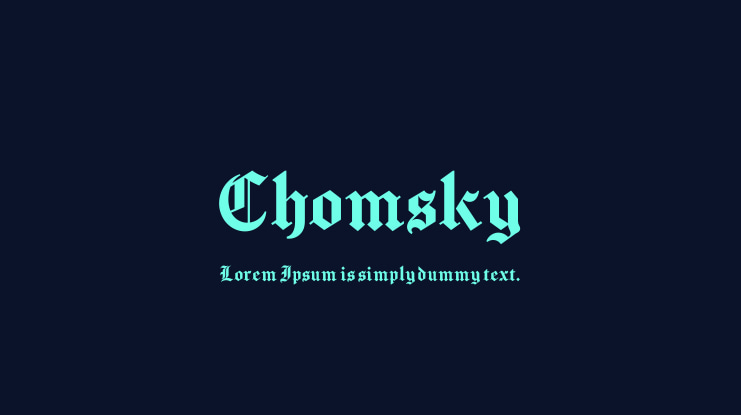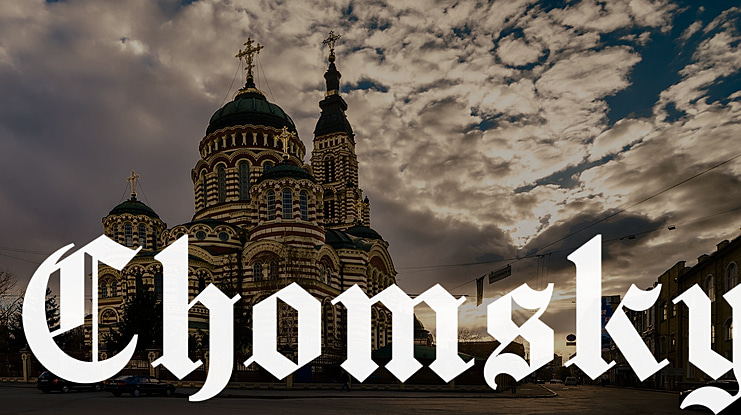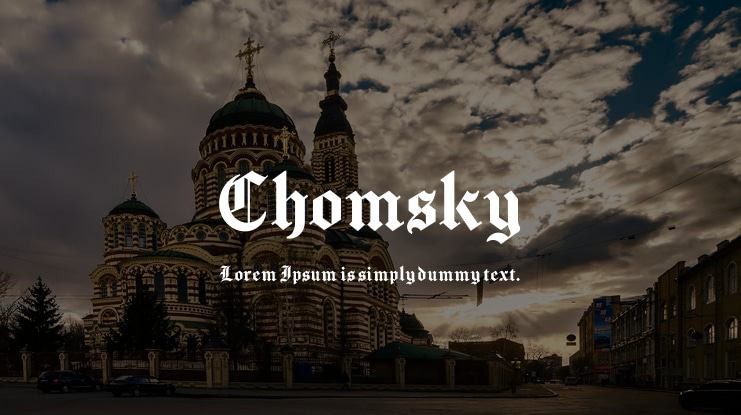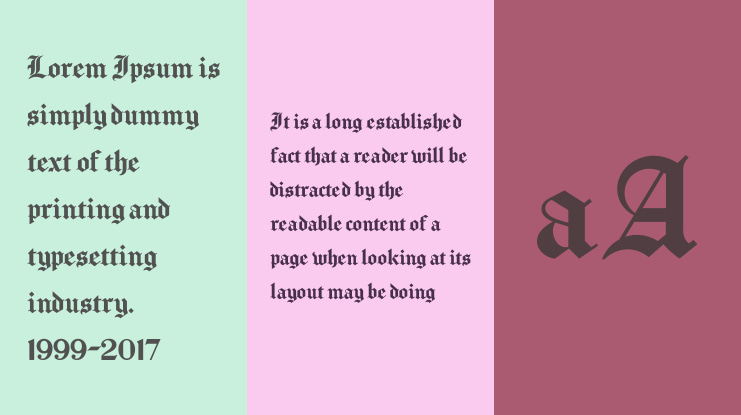
This is Chomsky, a newspaper masthead font in the style of the New York Times masthead. This font is released under the S.I.L. Open Font License, version 1.1.
This font is not an exact copy of the New York Times masthead. Rather, it aims to be suitable for running text as well, so I used a larger stem size. The difference between some of the characters are shown below; the N.Y.T. logo is above, and Chomsky below… :
I was quite surprised, that to my knowledge, I am the first to have undertaken this project. Many other famous brands, for example, that of CNN, Sega, and Coca Cola have fonts in homage to them; indeed, most of these fonts were made in the pre-Unicode era and are branded in terms of metadata with the name of the defunct, but once prominent, Macromedia Fontographer; the CNN copy cat font is itself going on twenty years old.
Perhaps it was the difficulty of creating the extra letters in a blackletter face that scared away would be font authors. Perhaps it was lack of knowledge about the law in this area. Either way, I do believe that I am the first.